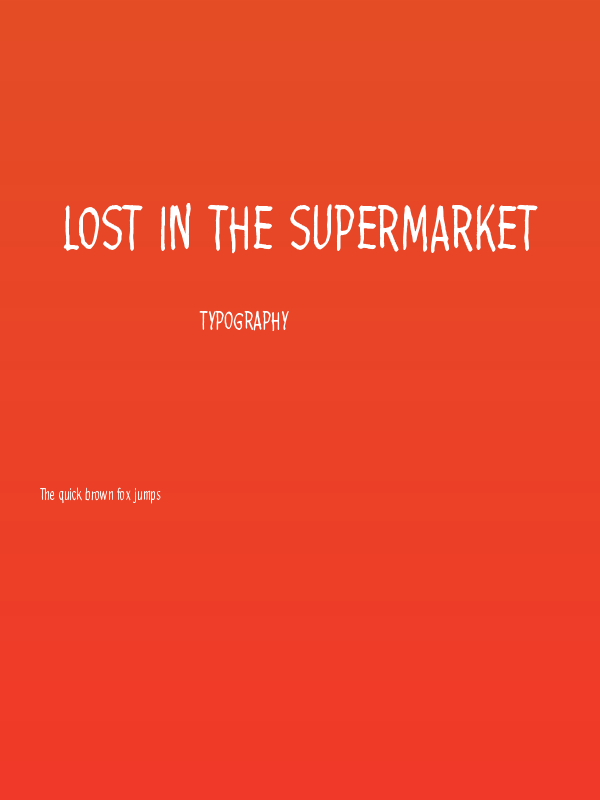
Lost in the supermarket Font
Lost in the supermarket Description
This font features a hand-drawn, organic style with a playful and casual appearance. The letters are slightly irregular, giving it a unique and personal touch. The strokes are uneven, with a rough texture that adds to its charm. The uppercase and lowercase letters maintain a consistent style, while the numerals and special characters complement the overall design. This font is ideal for projects that require a friendly and approachable look, such as children's books, casual invitations, or creative branding.
| Use Case | Headlines, Creative projects, Informal text |
| Proposed Projects | Children's books, casual invitations, creative branding, personal blogs, and artistic posters. |